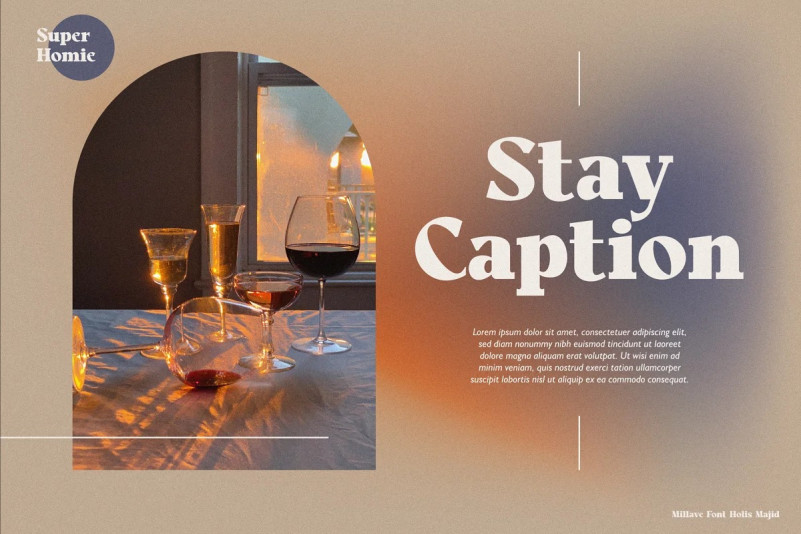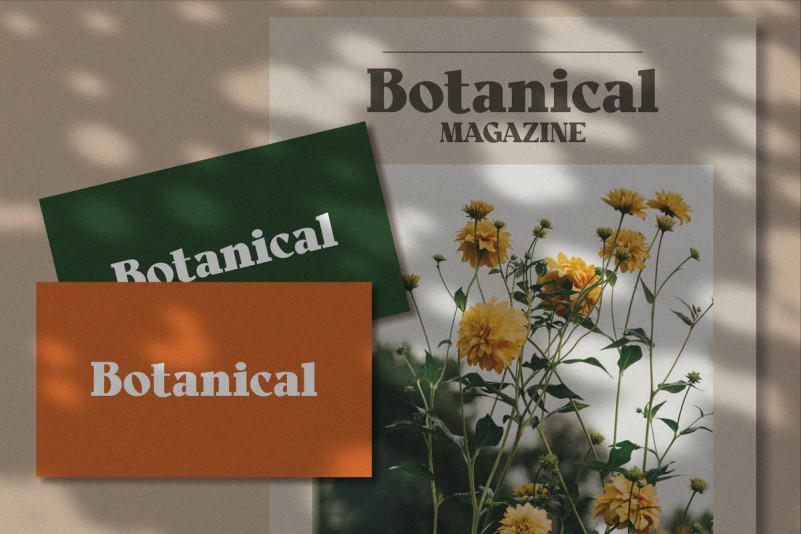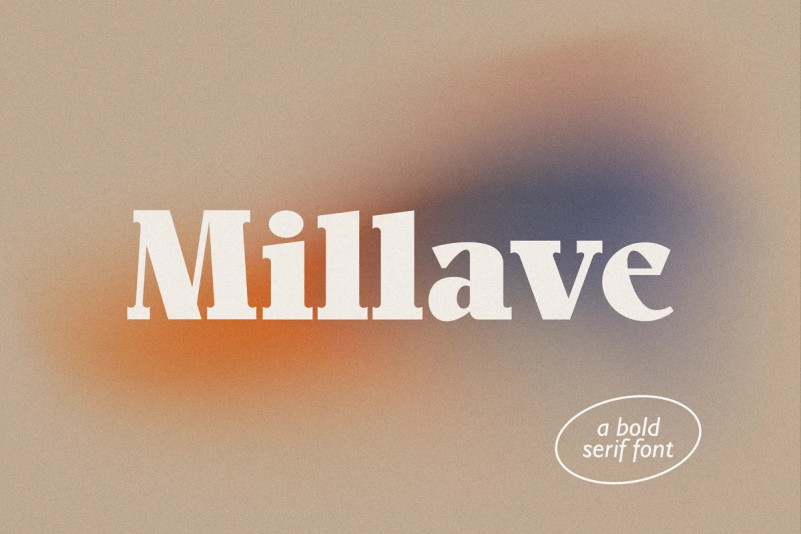
Millave Font
Serif font with bold characters, looks luxurious and cool for design. Designed for the business segment, clothing, apparel, poster design, headlines and others.